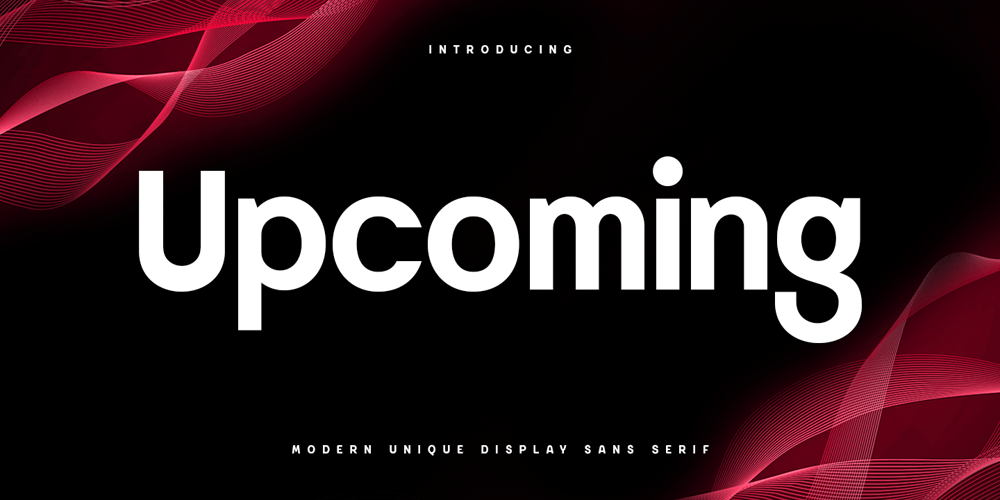
Upcoming Font Family was designed by Zamroni Hamzah and published by Sensatype Studio. Upcoming contains 2 styles and family package options. Upcoming is an Unique sans serif display font that special created for Modern needs with unique style. A New Display font that we created special for Unique branding needs, with weird style that ready to add value of your brand. It’s so nice to leverage designer or product owner that need solutions to make their design look more unique and urban.Upcoming Unique Display Sans Serif font ready with: Lowercase and Uppercase characters Numbers and Punctuations Ready with Regular and Italic Style Preview as a inspirations that you can do with Upcoming font Available for PC and Mac Wish you enjoy our font. ๐